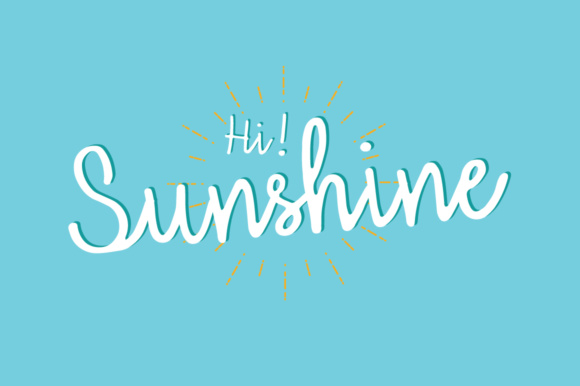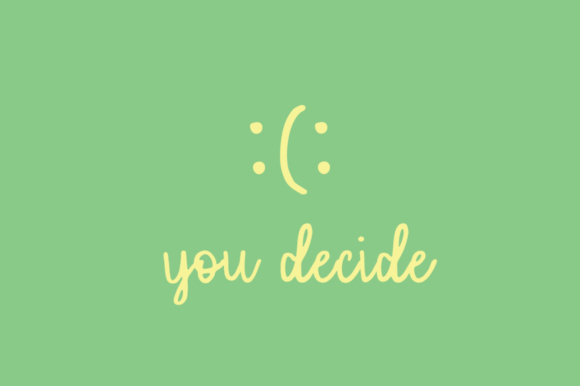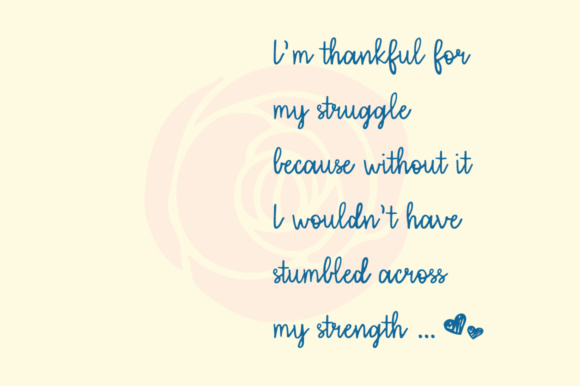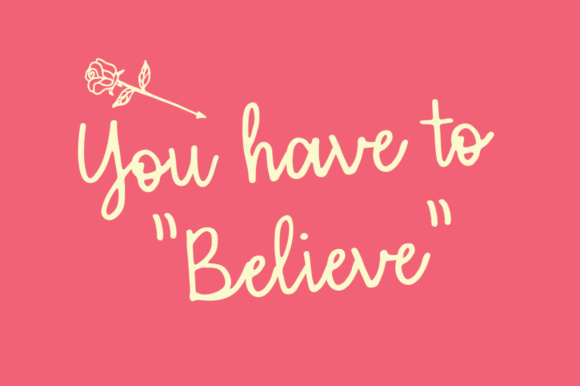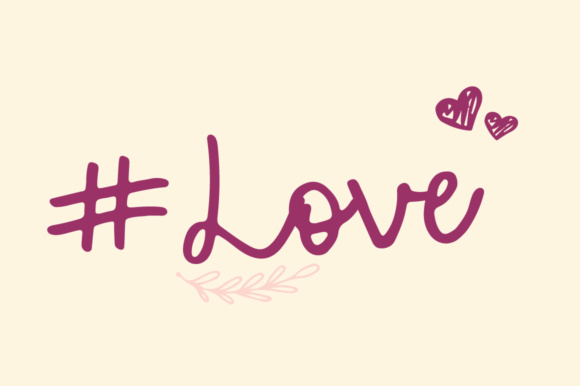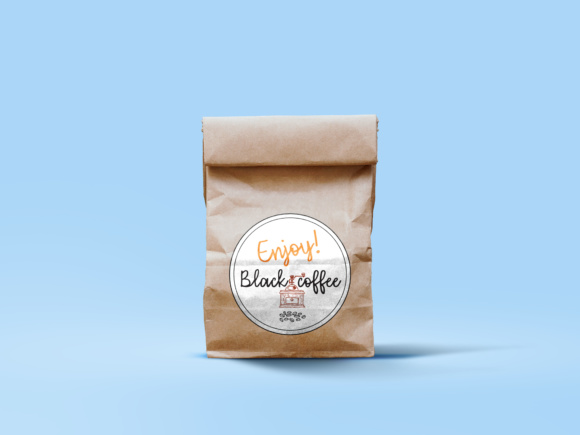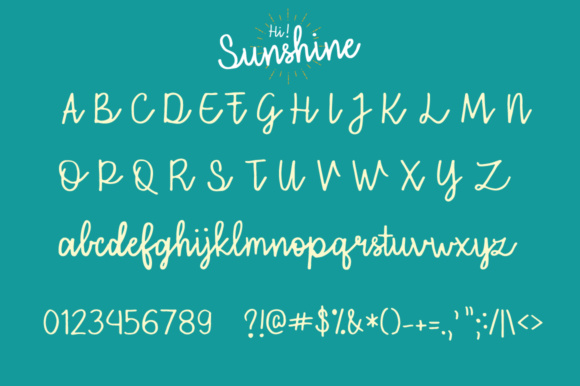
Hi Sunshine Font
About Hi Sunshine Font
Hi Sunshine is a cute typeface which can be used on cards, posters, merchandise, book covers, websites, packaging, and basically anywhere you like.
The overall feel of the font is simple, warm, elegant and informal and it’s perfect if you want to convey a sense of friendliness and style.